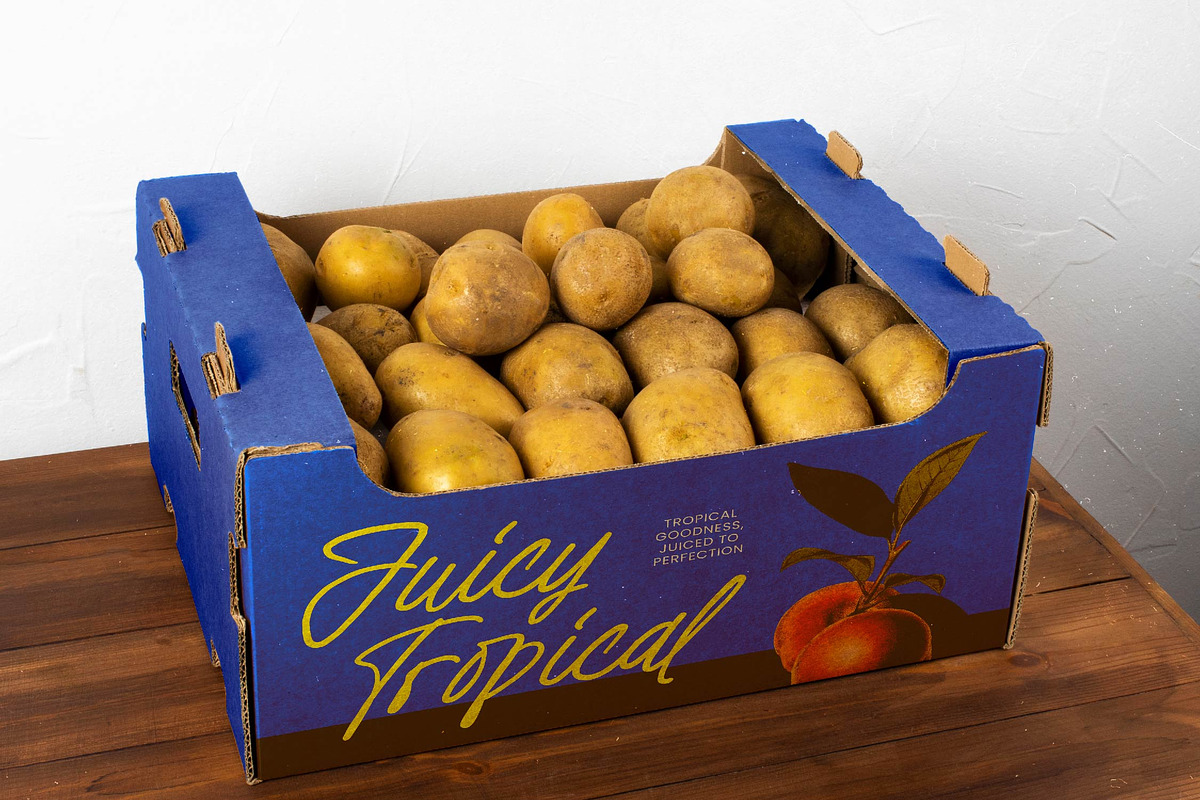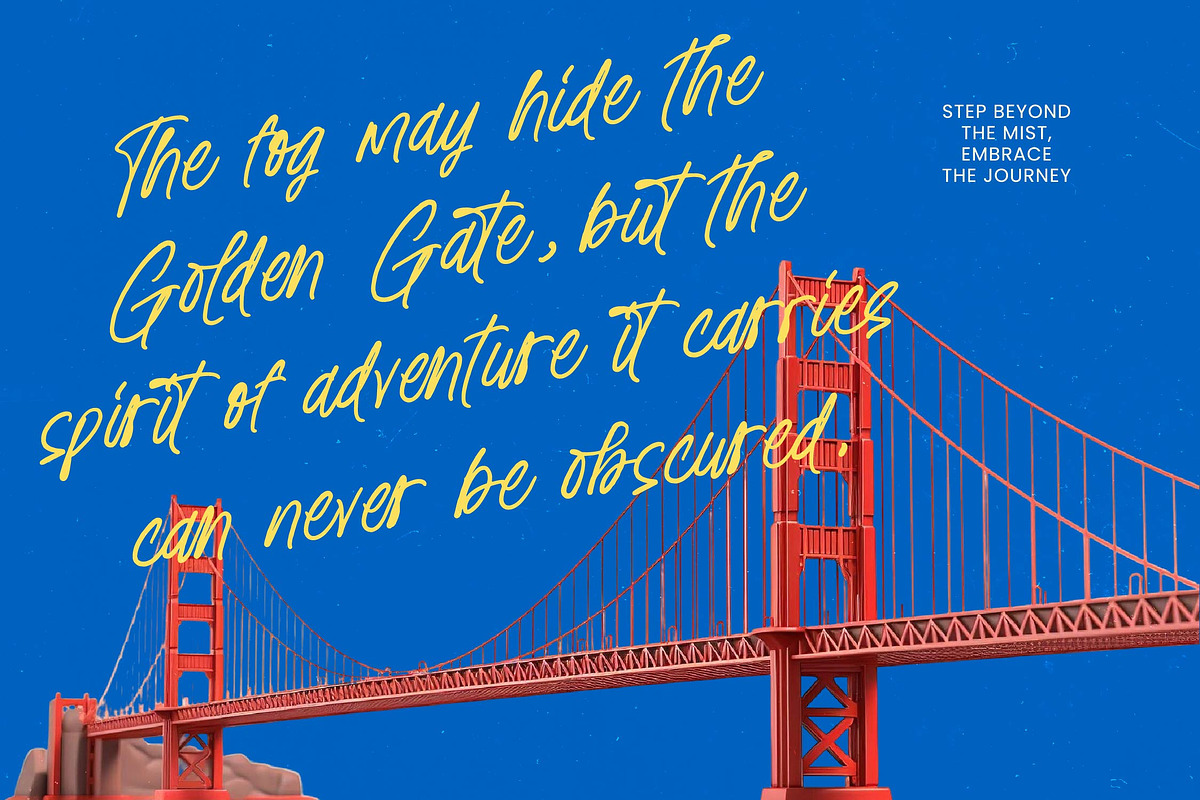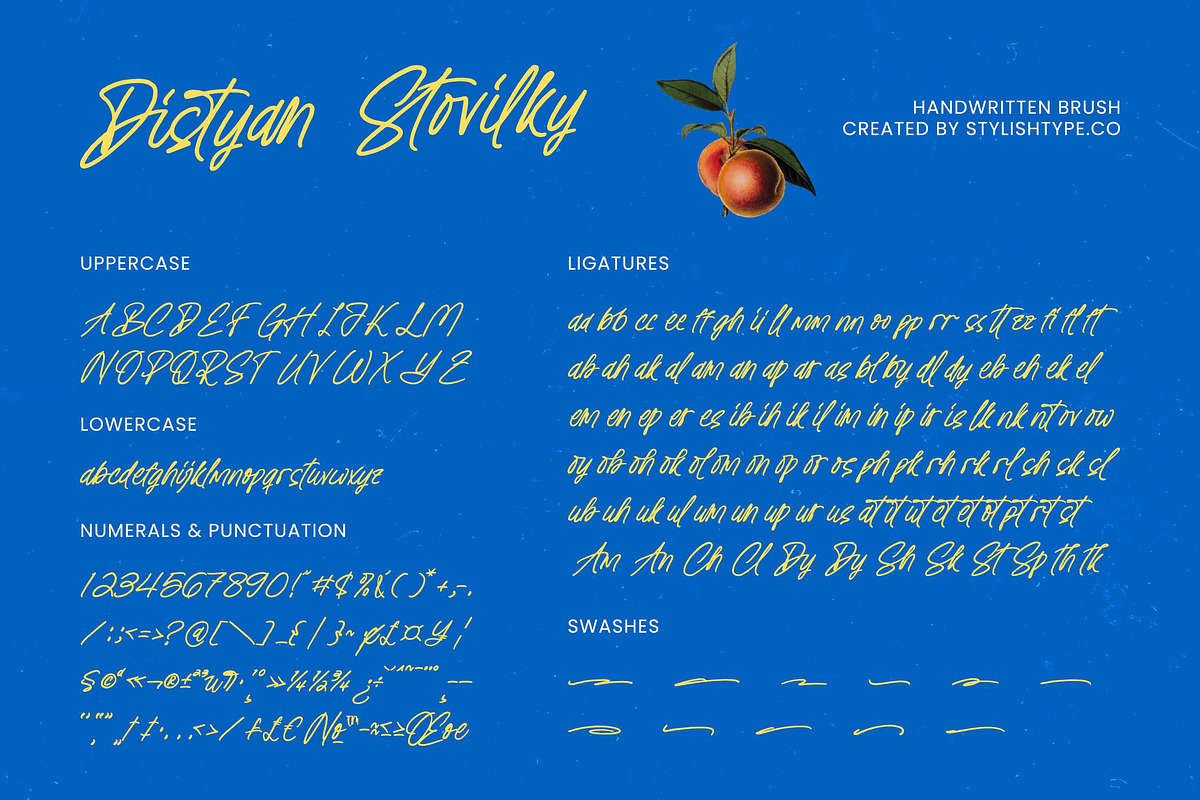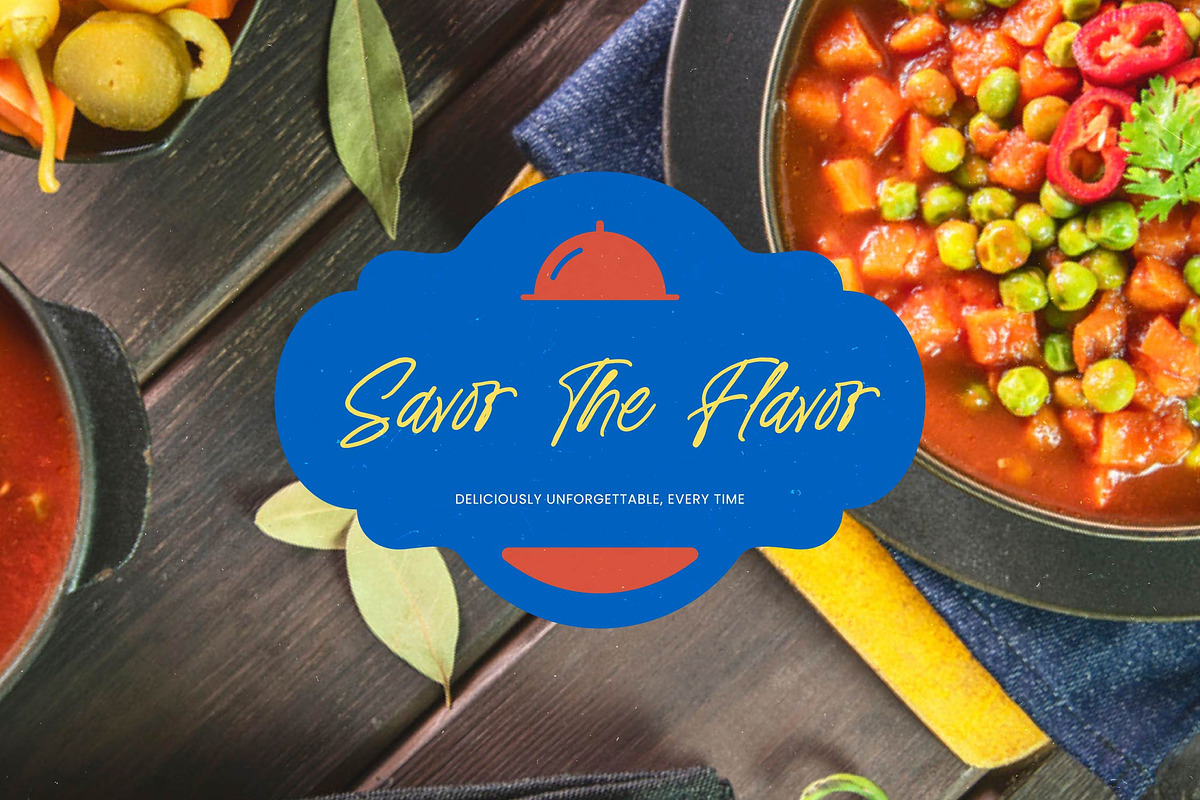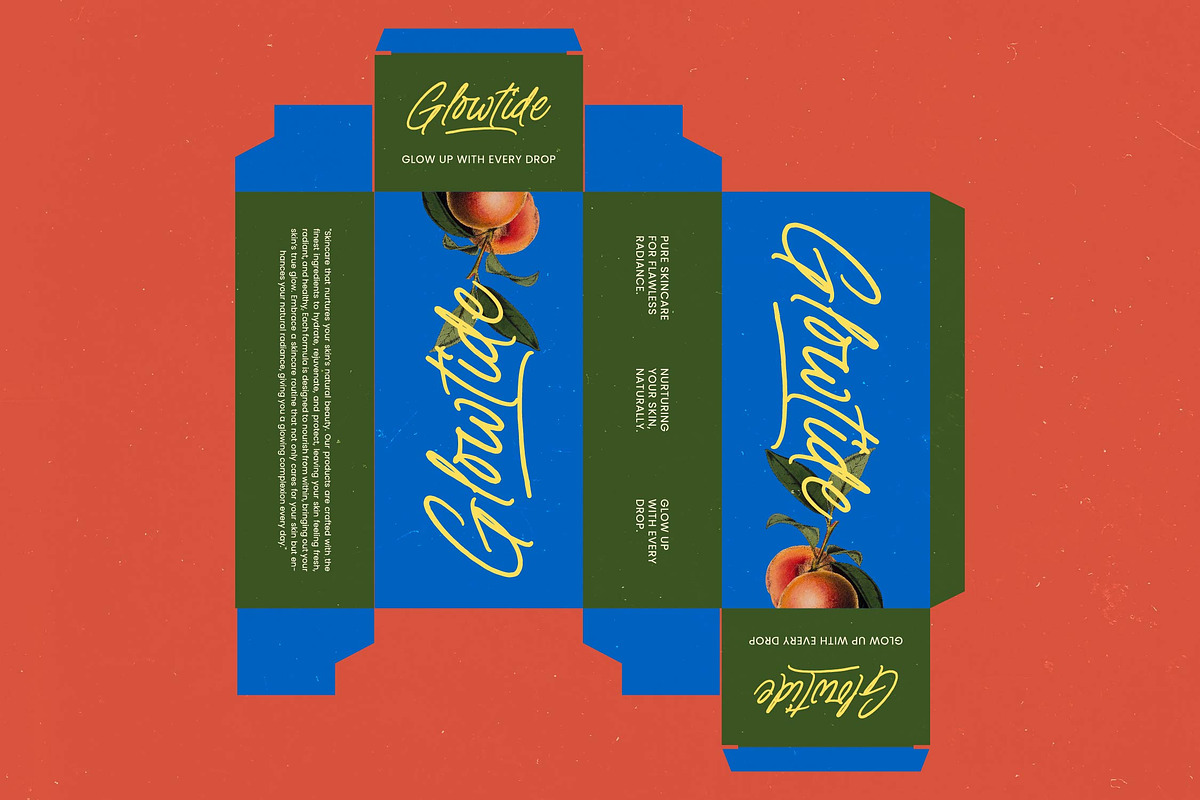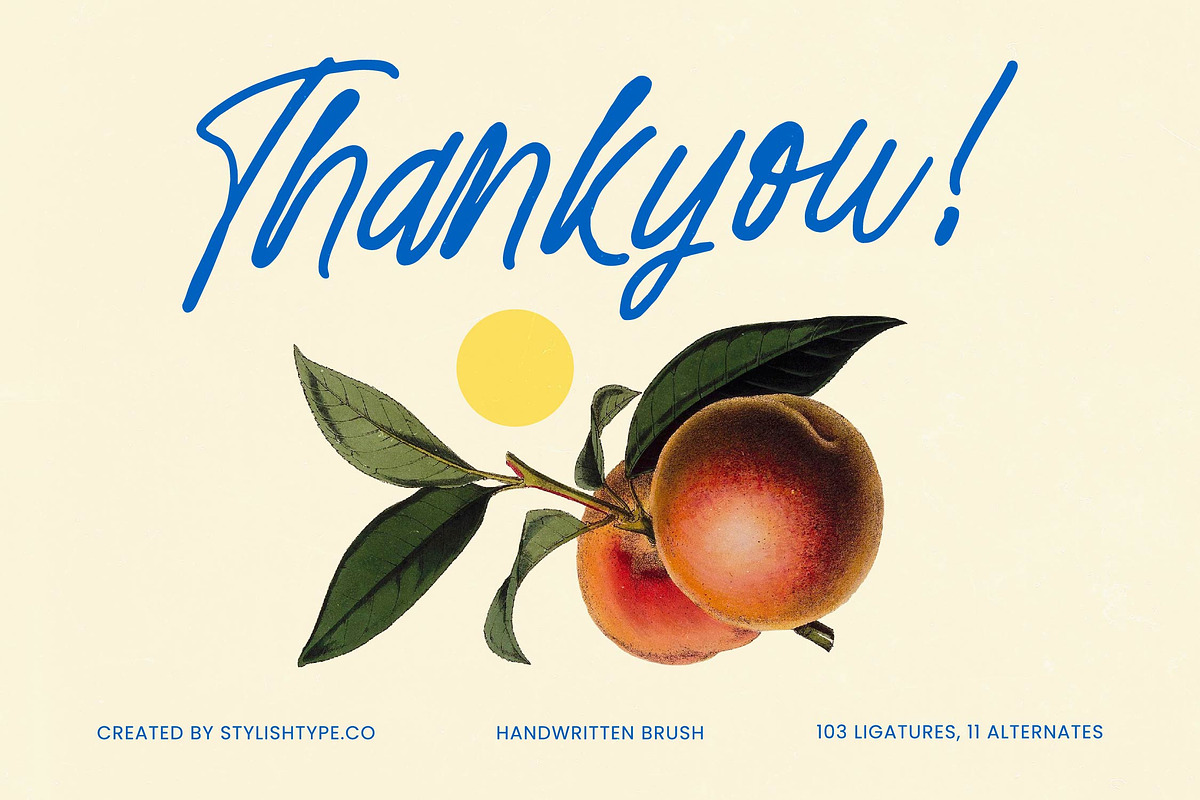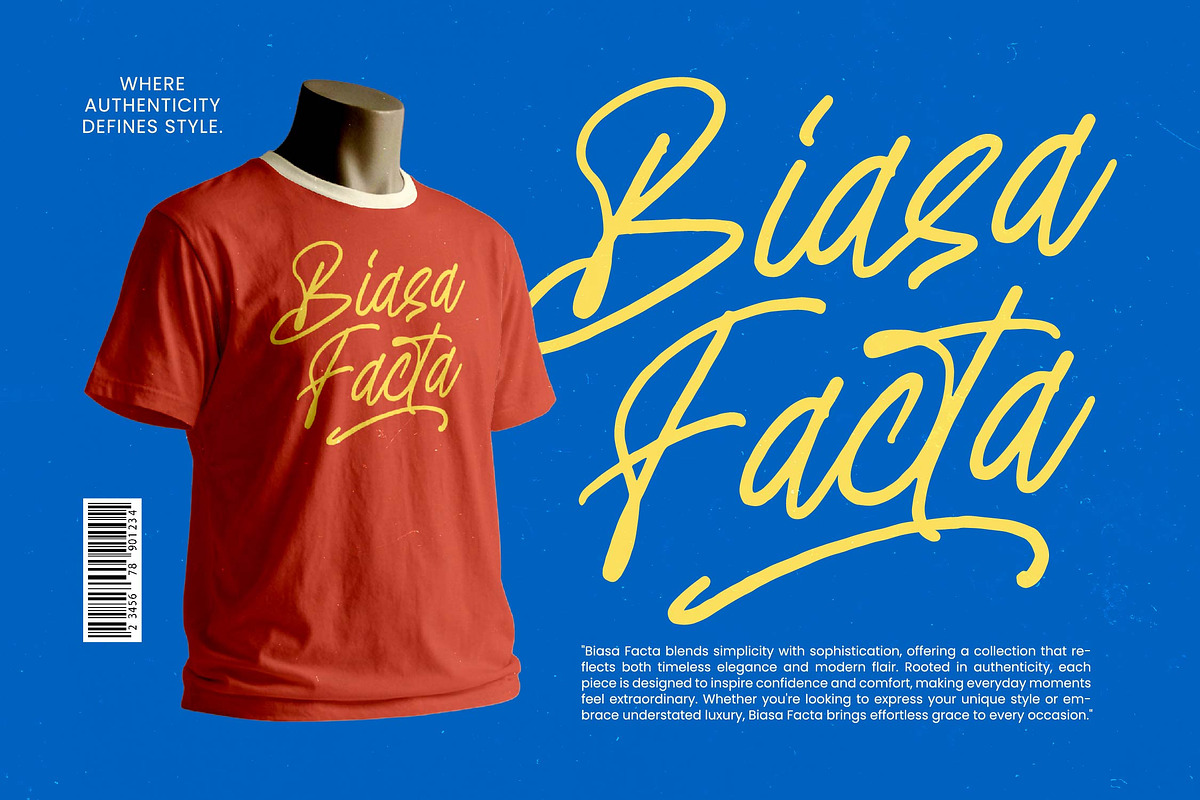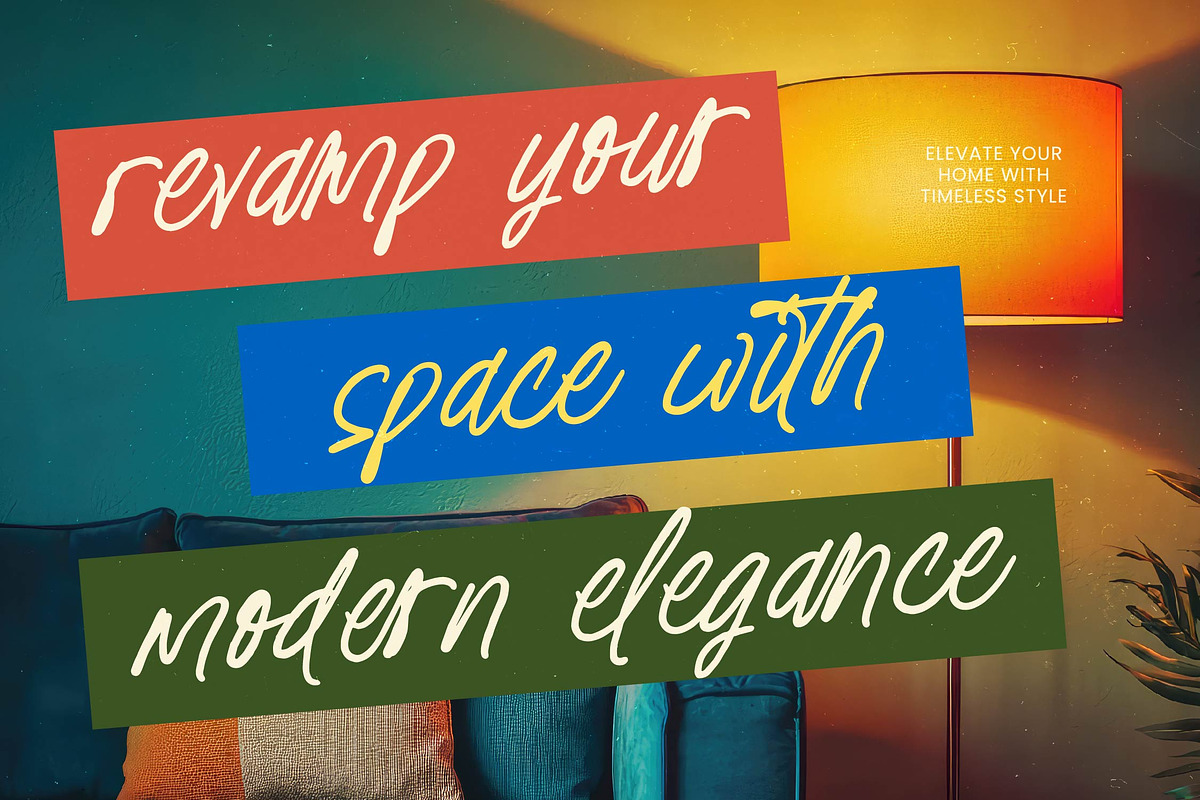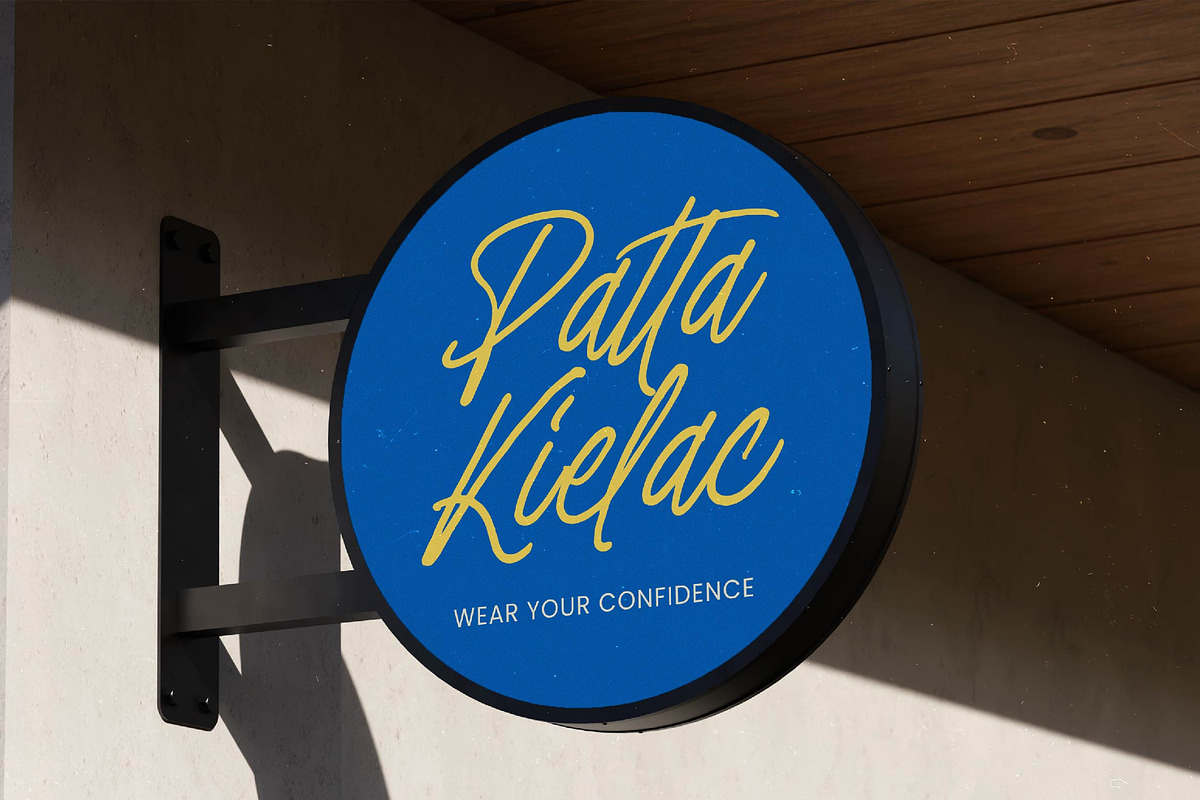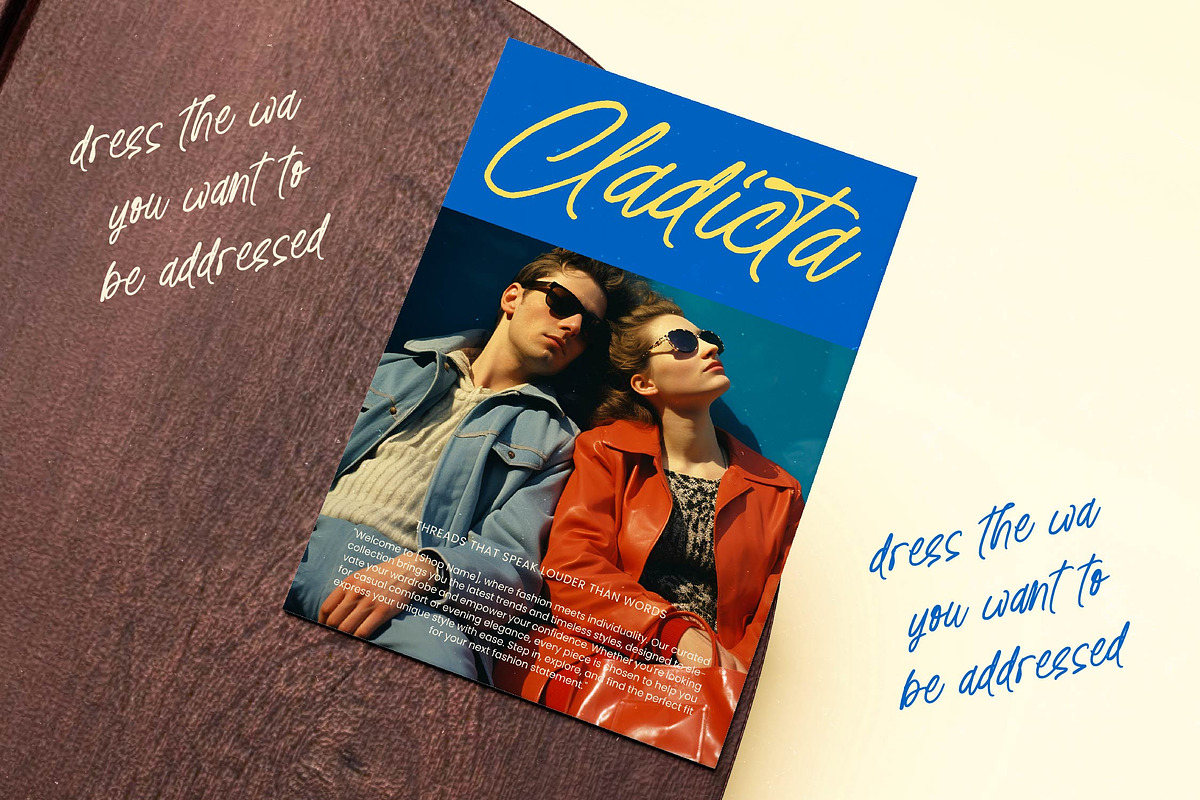
Distyan Stovilky Handwritten Brush
Distyan Stovilky – Handwritten Brush , Elevate your creative vision with a typeface that exudes raw energy and organic charm. Distyan Stovilky – Handwritten Brush is a masterclass in modern calligraphy, offering a fluid brush stroke that captures the essence of authentic hand-lettering. This expressive script is designed to command attention, blending a dynamic rhythm with a sophisticated, handcrafted feel. By integrating 103 unique ligatures and 11 alternates, Distyan Stovilky – Handwritten Brush ensures that every word looks bespoke and naturally composed, providing an artistic edge to any digital or print canvas.
Break through geographic boundaries with a design tool built for the global stage. With its extensive multilingual support, Distyan Stovilky – Handwritten Brush adapts seamlessly across global markets, making it incredibly versatile for international projects. Whether you are targeting audiences in Europe, Asia, or the Americas, the comprehensive character set ensures consistent branding and high legibility across various languages. This global versatility makes Distyan Stovilky – Handwritten Brush a must-have asset for agencies and designers working on diverse, large-scale campaigns that require a unified visual voice.
Achieve unparalleled customization with advanced typographic features that bring your projects to life. The brilliance of Distyan Stovilky – Handwritten Brush lies in its ability to mimic real-world ink movement through its high-contrast strokes and rhythmic flow. The inclusion of stylistic alternates allows for endless creative experimentation, giving designers the power to fine-tune the visual weight and personality of their compositions. This professional-grade brush font bridges the gap between digital precision and human touch, making Distyan Stovilky – Handwritten Brush an essential choice for those seeking a bold, artistic identity.
Transform your brand identity with a versatile aesthetic perfect for high-impact visual storytelling. This typeface is an ideal choice for luxury branding, premium packaging, and high-end editorial design where a personal touch is paramount. Distyan Stovilky – Handwritten Brush is perfect for social media graphics, lifestyle posters, and boutique product labels that require a sense of exclusivity and warmth. Its artistic flair also makes it exceptionally well-suited for wedding invitations, fashion lookbooks, and high-energy advertising campaigns that demand a memorable, hand-drawn signature.